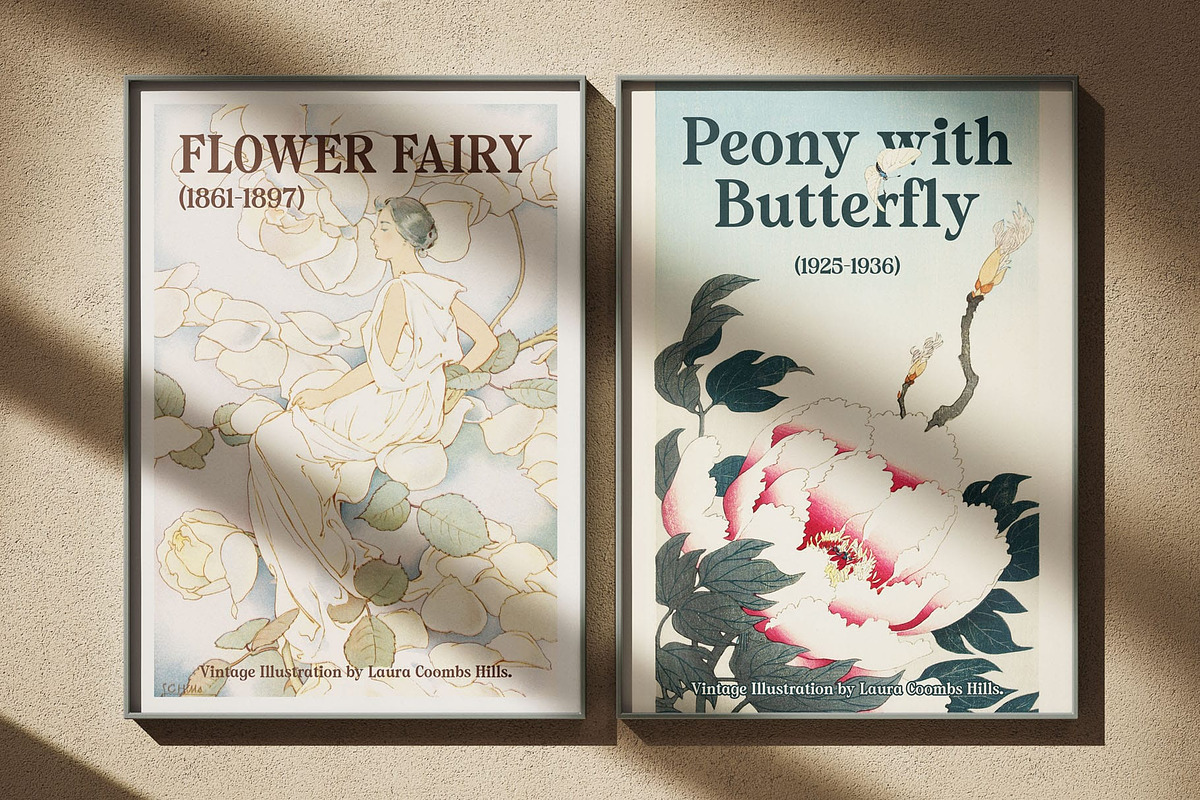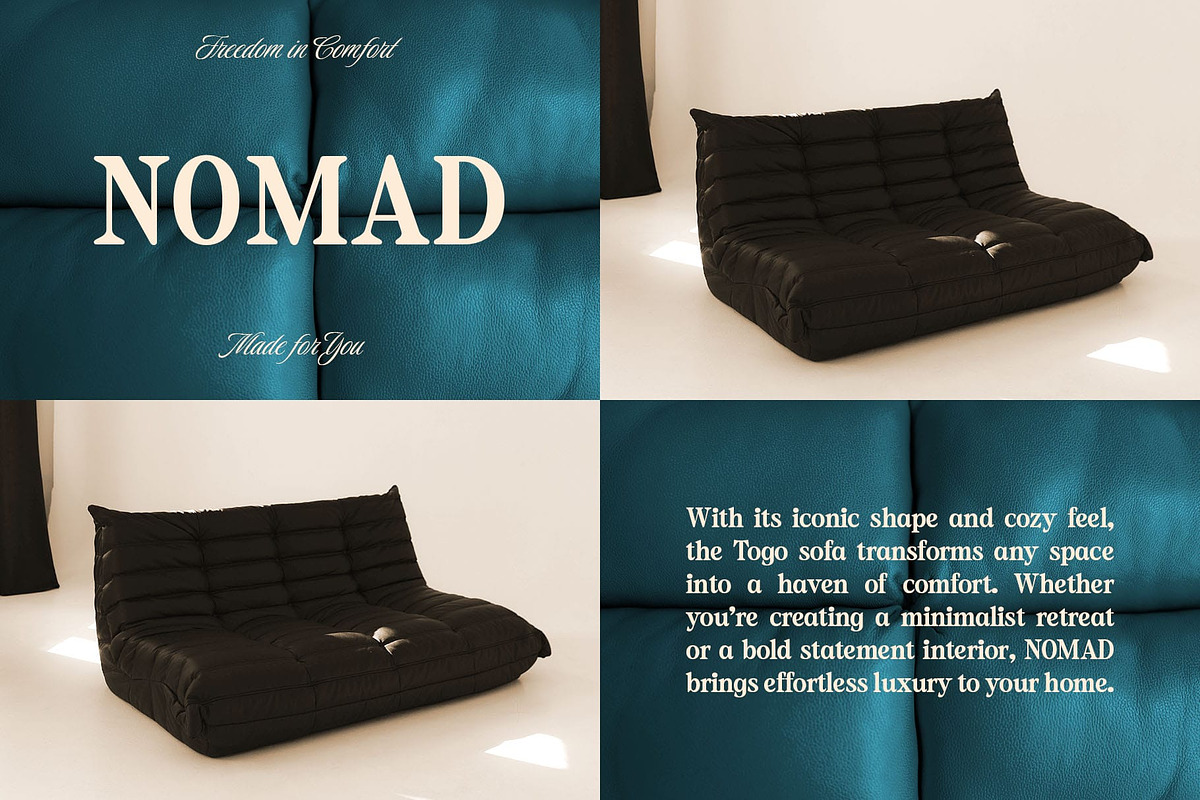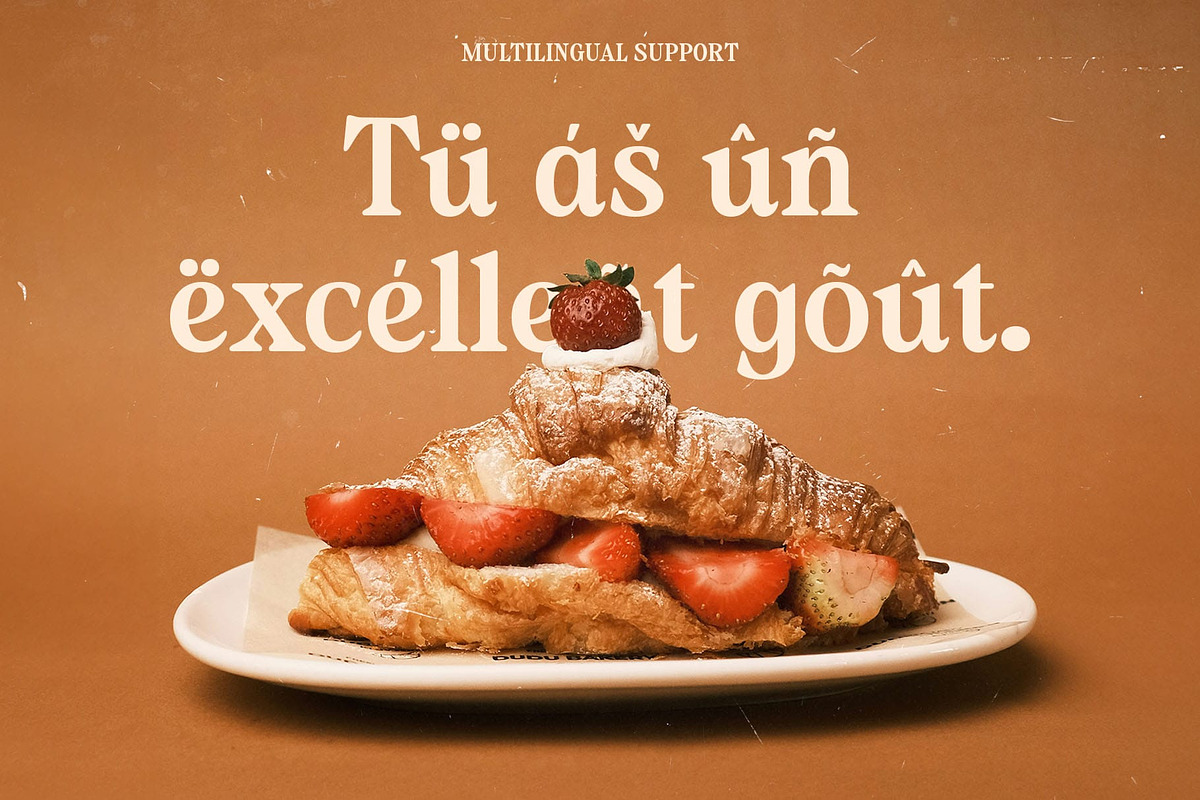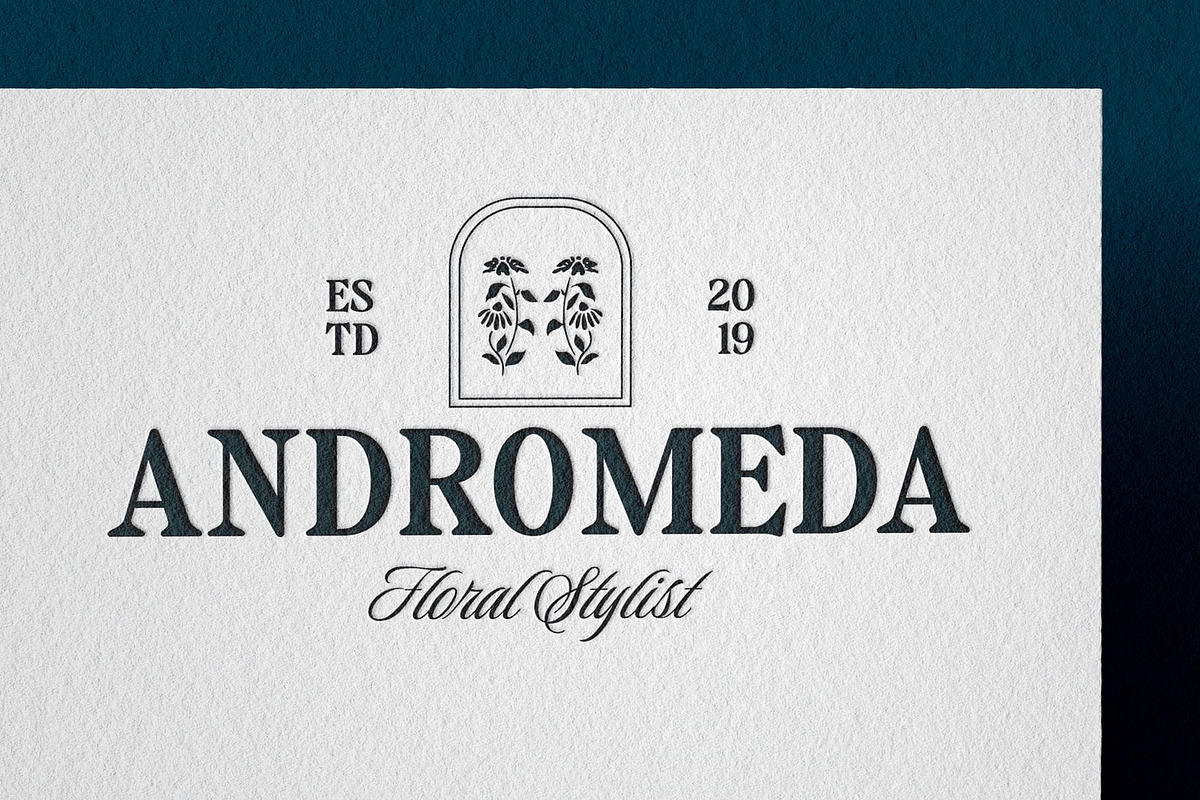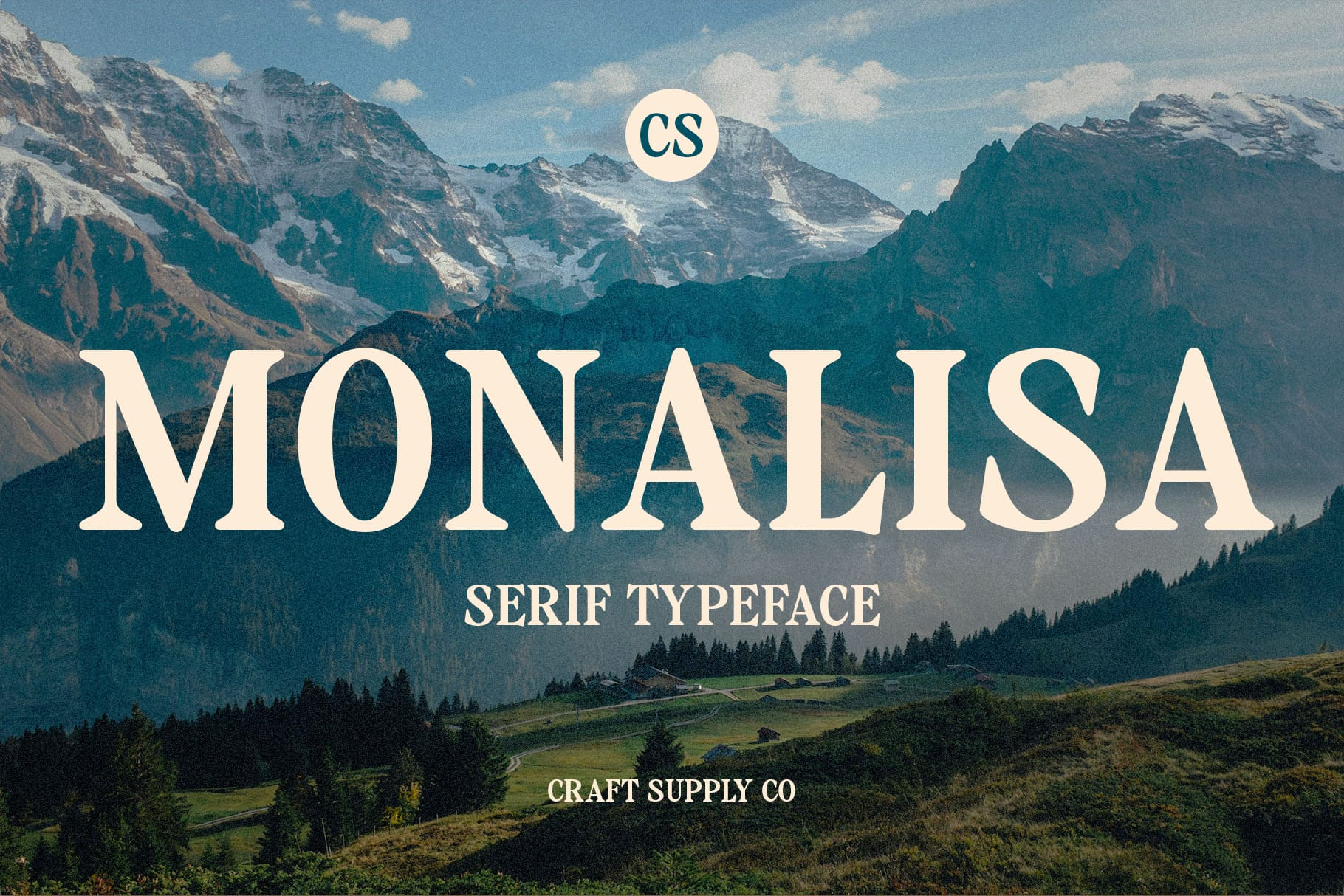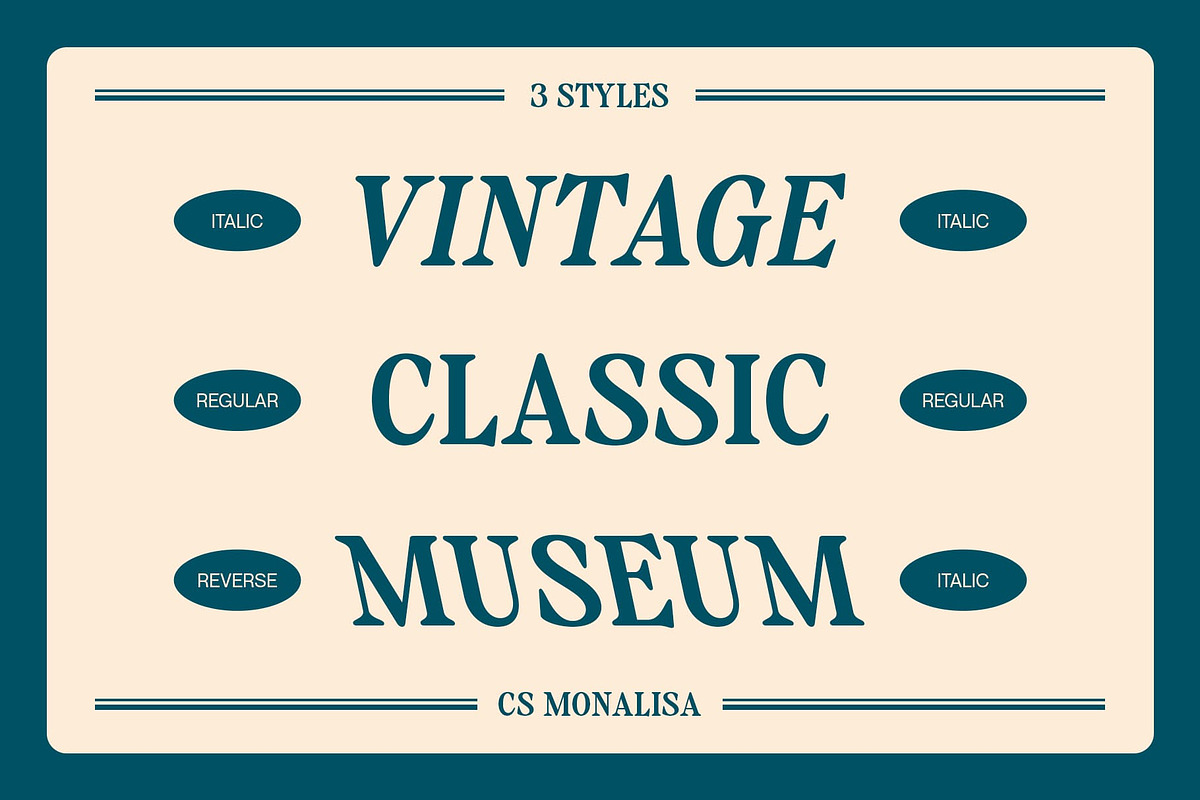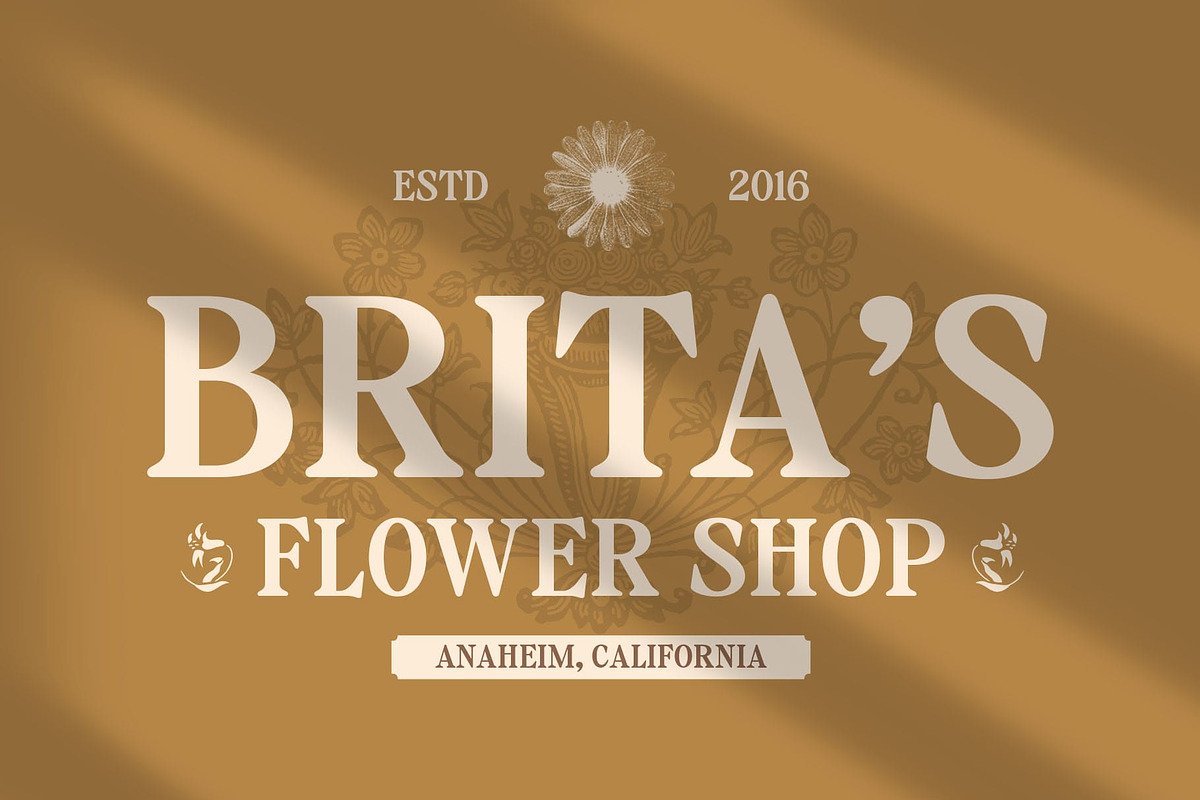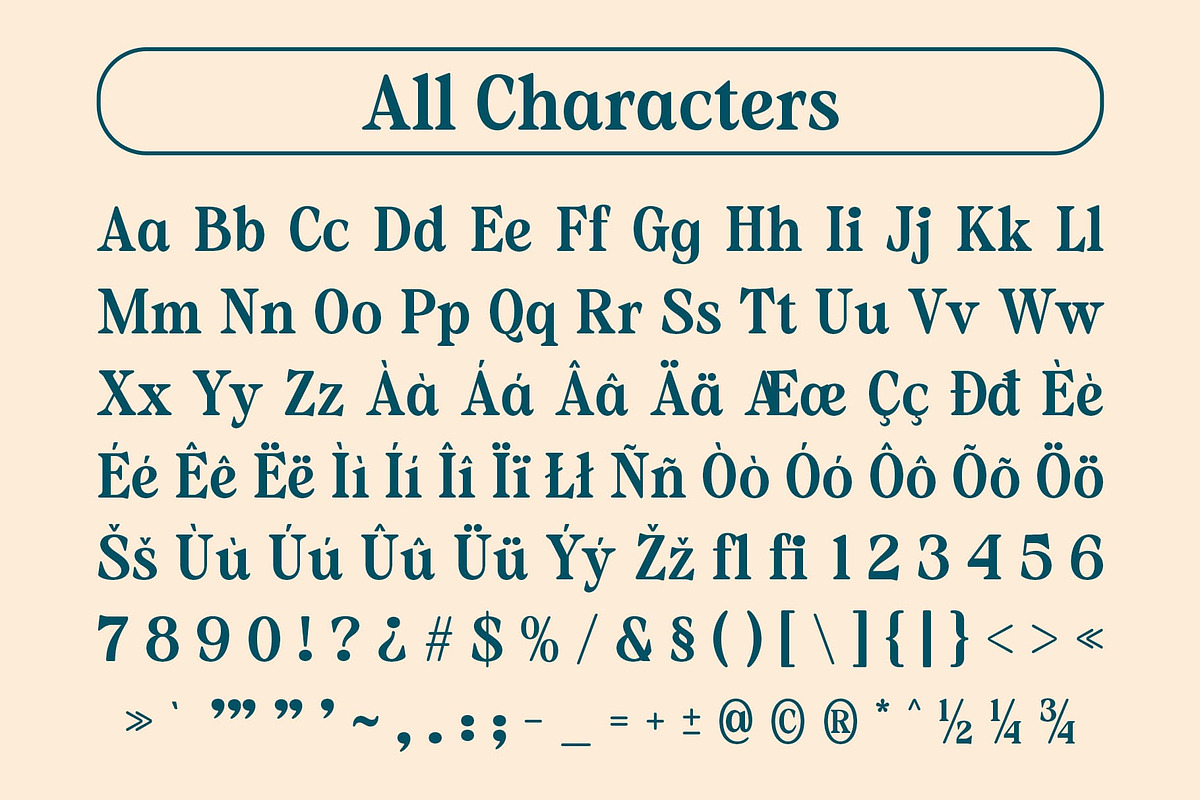
CS Monalisa – Classic Font
CS Monalisa – Classic Font: A Timeless Fusion of Elegance and Warmth
A Modern Classic Serif with Rounded Terminals CS Monalisa is a modern classic serif font that blends timeless sophistication with a soft, contemporary appeal. Its defining feature is the rounded terminals, which add a sense of warmth and approachability compared to traditional sharp serifs. This unique detail makes the font feel gentler yet still refined, making it an excellent choice for a wide range of high-end and creative projects.
Balanced Contrast and Timeless Proportions Crafted with classic proportions and elegant contrast, CS Monalisa maintains a graceful, polished appearance. Its subtle stroke variations create a harmonious balance between readability and artistic expression, allowing it to work seamlessly in both display and text settings. The font’s clean, well-defined letterforms offer a sense of stability and reliability, perfect for branding, editorial layouts, and luxury applications.
Versatile for Luxury, Branding, and Editorial Use CS Monalisa is an ideal choice for premium branding, fashion labels, editorial spreads, and upscale product packaging. Its rounded serifs and refined structure lend themselves well to projects that require a modern yet timeless aesthetic. Whether used in high-end logos, wedding invitations, book covers, or lifestyle magazines, this font delivers a sophisticated and inviting visual presence.
- CS Monalisa Regular
- CS Monalisa Italic
- CS Monalisa Reverse Italic